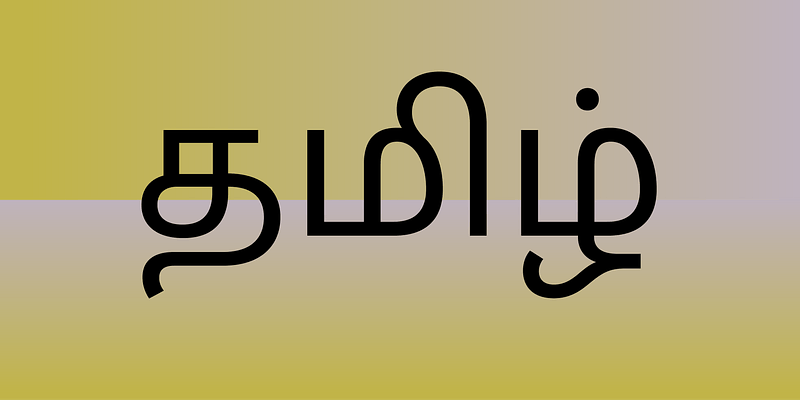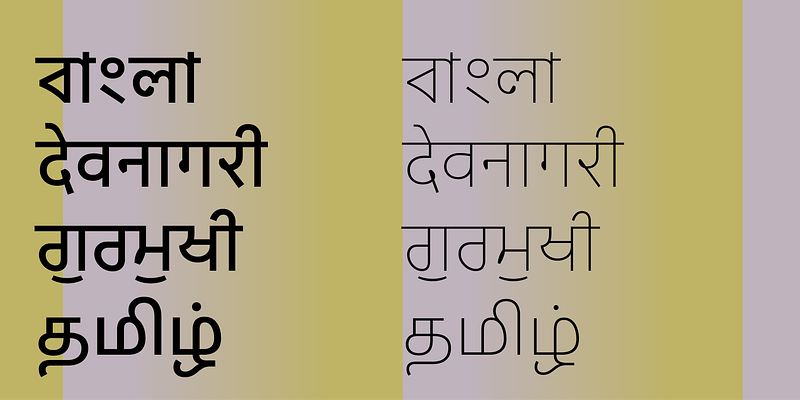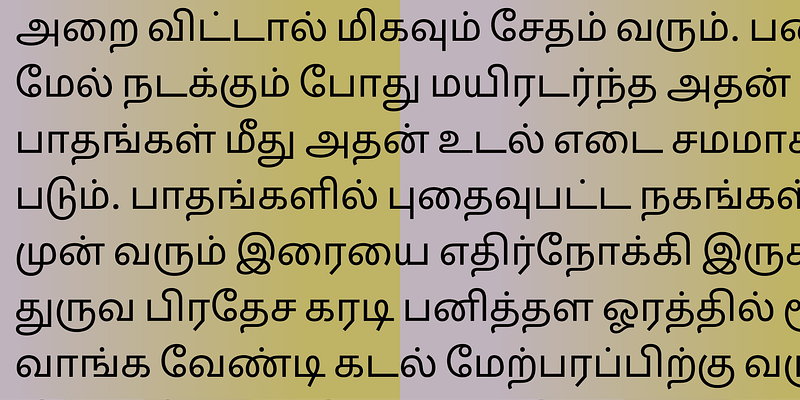
Sarvatrik offers a robust set of weights as well as language support across Bangla, Devanagari, Gurmukhi, Tamil and Latin - with more Indic scripts set to follow. It’s a practical choice, performing well at both large and small sizes but without compromising on its friendly, open personality. The Latin version works seamlessly alongside Bangla, Devanagari and Gurmukhi, making it a good choice for multi-language branding, or companies working in several markets.
Universal Thirst
Universal Thirst is a type foundry that specialises in Indic and Latin scripts. It was set up in 2016 by designer and engineer duo Gunnar Vilhjálmsson and Kalapi Gajjar, who draw on their contrasting visual heritage to offer a unique, dual perspective on type.